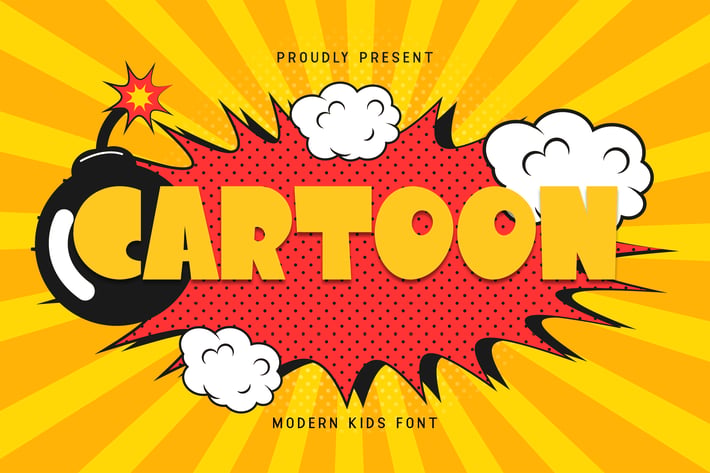
Cartoon - Modern Kids Font
Introducing "Cartoon," a modern kids font that infuses whimsical fun and playful creativity into your design projects. Perfect for children's book designers, educators, and creatives aiming to captivate young audiences, Cartoon offers a delightful and vibrant typeface that sparks imagination and joy.
Ideal for children's books, posters, educational materials, logos, and toy packaging, Cartoon's bold and friendly characters provide a lively and engaging aesthetic. Each letter is meticulously crafted to ensure readability and visual appeal, making your designs both effective and enchanting.
The "Cartoon" font includes a complete set of uppercase and lowercase letters, numbers, punctuation marks, and special characters. This versatility allows for seamless integration into various design projects, from vibrant posters to charming storybooks.
Add a touch of whimsy and creativity to your designs with Cartoon, the modern kids font that turns every project into a colorful and joyful adventure.